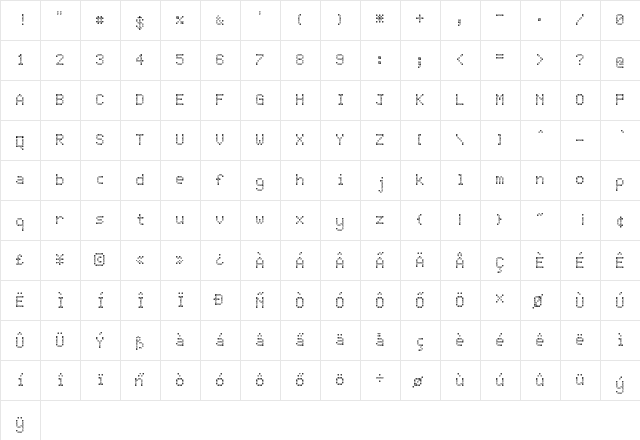
JD Rings Regular
| Designer | Jecko Development |
Design Context for JD Rings Typeface
JD Rings offers clean, dependable letterforms without strong stylistic allegiance, making it a practical choice for designers who need flexibility.